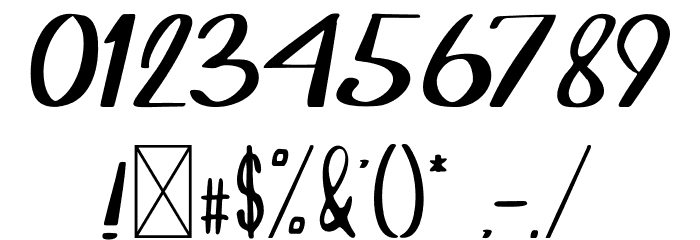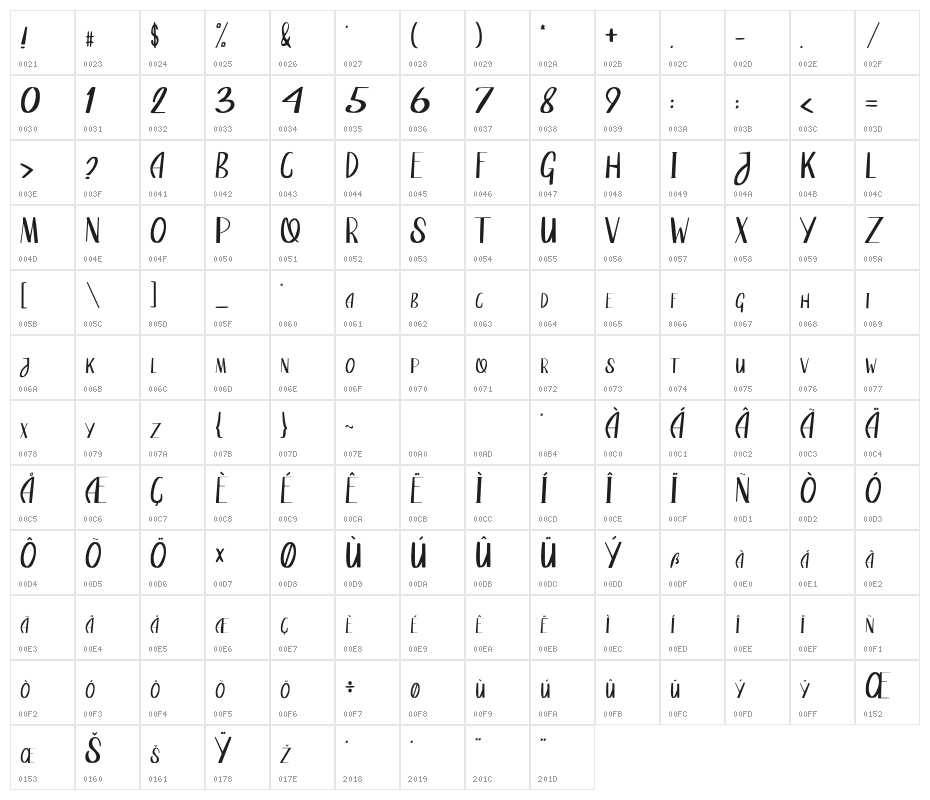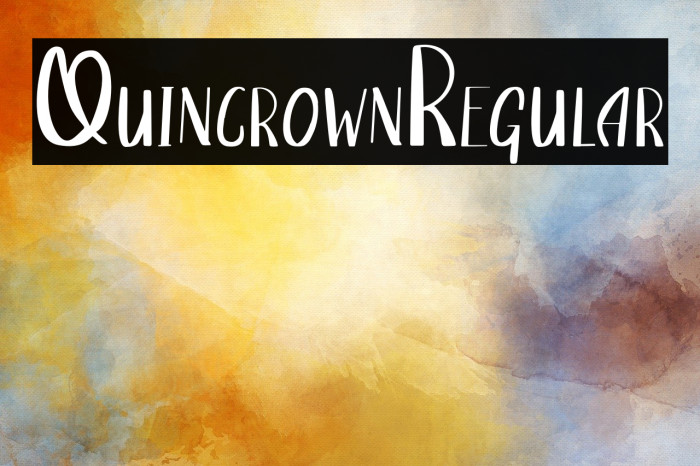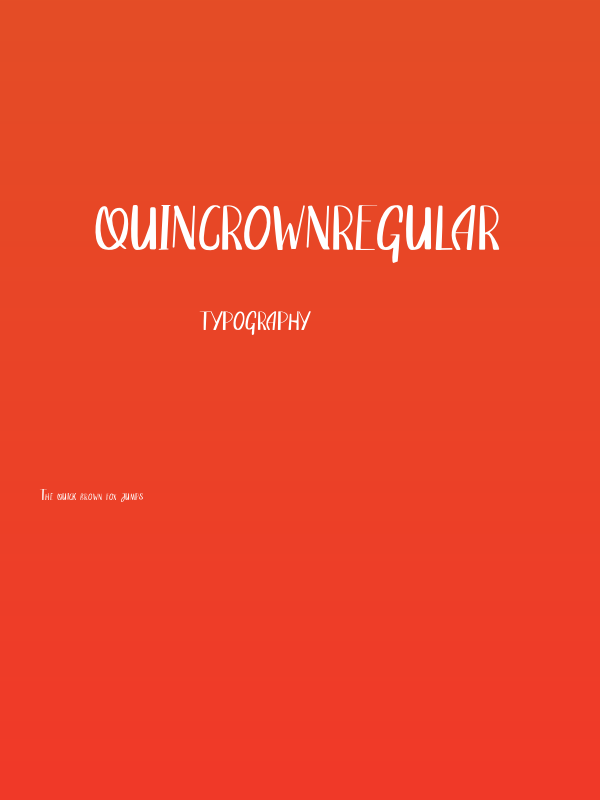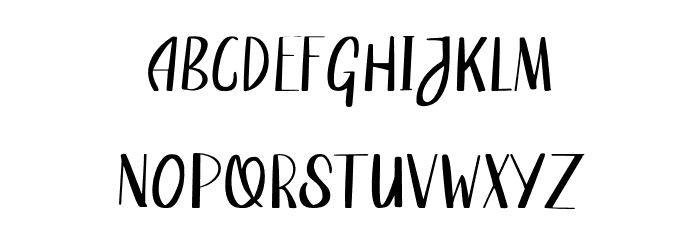
QuincrownRegular Font
QuincrownRegular Description
This font features a playful and dynamic style with a handwritten appearance. The uppercase letters are bold and slightly slanted, giving a sense of movement and energy. The lowercase letters maintain a consistent flow, complementing the uppercase with a more casual and approachable feel. Numbers are bold and clear, ensuring readability. Special characters are creatively designed, adding a unique touch to the overall aesthetic. The font's strokes vary in thickness, providing a medium contrast that enhances its lively character.
| Proposed Projects | Ideal for creative projects such as posters, invitations, branding, and social media graphics where a lively and informal tone is desired. |